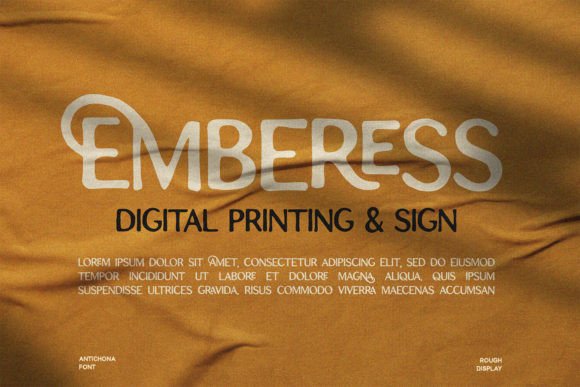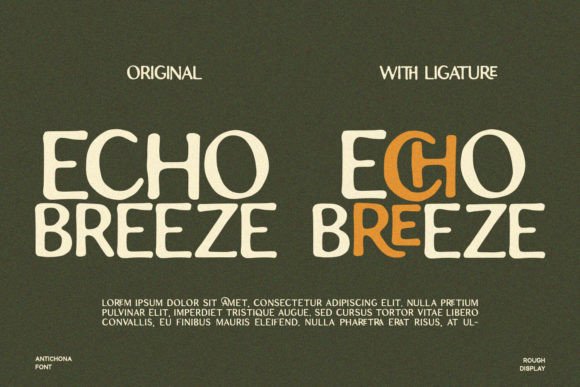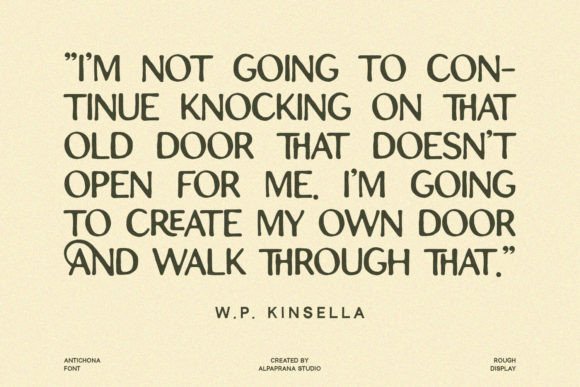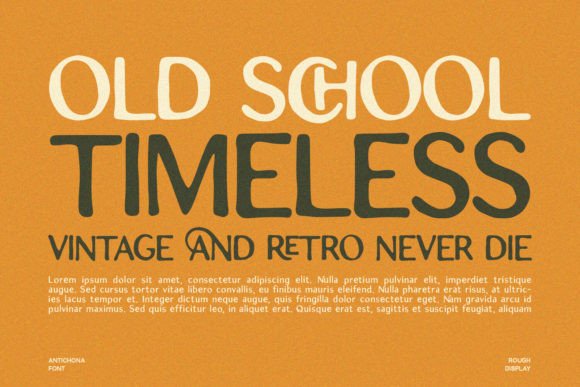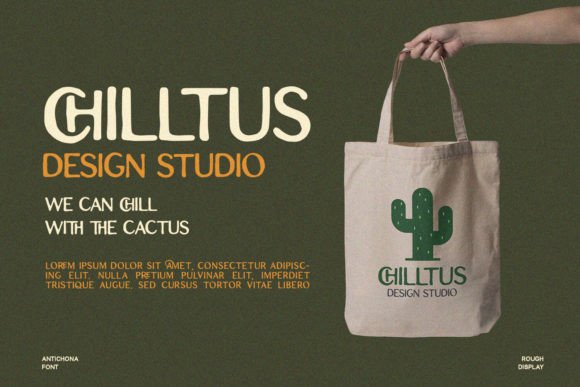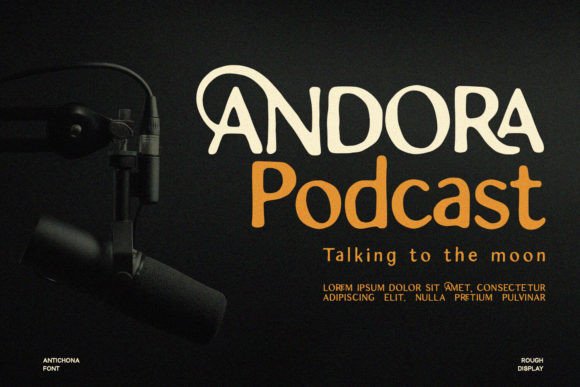
Timeless Elegance: Unveiling the Allure of Antichona Font
As designers, we’ve all been there – staring at a blank canvas, searching for the perfect font to bring our vision to life. It’s in these moments of creative frustration that we often find ourselves drawn to the classics, yearning for a style that exudes a sense of nostalgia and timelessness. And that’s exactly where the Antichona Font comes in, effortlessly capturing the essence of bygone eras with its stylish and timeless design.
Antichona Font is more than just a font – it’s a gateway to a world of vintage charm and modern sophistication. With clean lines and subtle curves, this retro sans-serif font is perfect for projects seeking a harmonious blend of vintage and chic aesthetics. Whether you’re designing a vintage-inspired poster or a contemporary brand identity, Antichona Font is an invaluable addition to any designer’s toolkit.
Antichona Font Key Features
- Font Family: Antichona Font is a sans-serif font family designed for digital use.
- Unique Characteristics: Features a clean, modern design with a unique x-height and distinctive letterforms.
As a designer, I’ve had the chance to work with many fonts, but Antichona Font has left a lasting impression on me.
- Unique and Exotic Design: The font’s intricate details and curves give it a distinctive look that’s perfect for adding a touch of elegance to any design project.
- High-Quality Glyphs: Each letter and symbol is meticulously crafted, resulting in crisp and clear lines that make it a joy to work with.
- Strong Legibility: Despite its ornate design, Antichona Font remains highly legible, even at smaller font sizes.
Limited Use Cases ⚠️
- Readability in Body Text: Due to its ornate design, Antichona Font may not be the best choice for body text, as it can become overwhelming and difficult to read.
- Unsupported Languages: The font may not support certain languages or character sets, which can limit its use in international projects.
Overall, I’d say Antichona Font is a great addition to any designer’s toolkit. While it may have some limitations, its unique design and high-quality glyphs make it perfect for headings, titles, and other design elements where you want to make a statement.
The Antichona font is suitable for a variety of design projects, including logos, business cards, and social media graphics. Its unique style makes it ideal for creative and artistic projects, such as book covers, posters, and infographics.